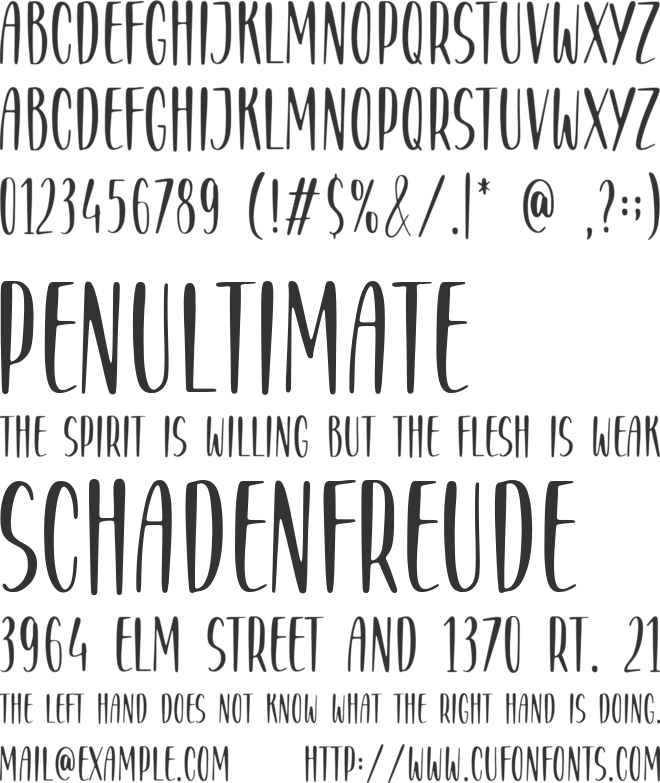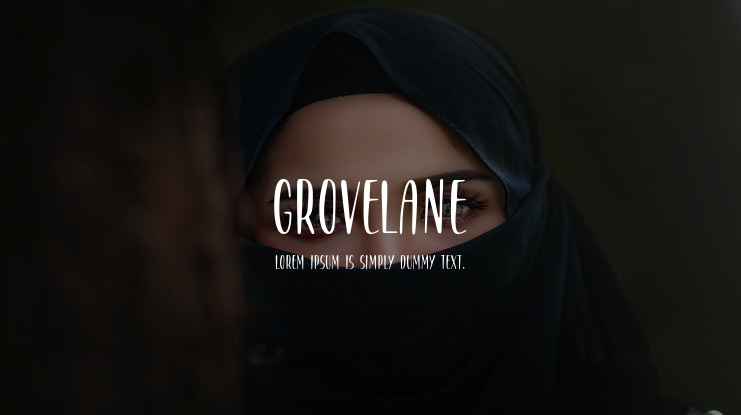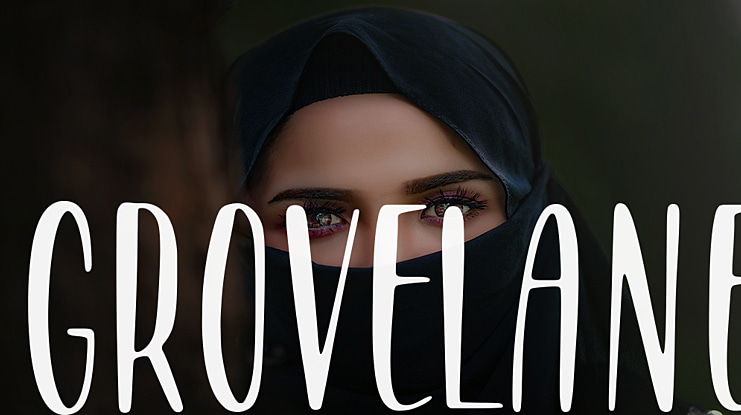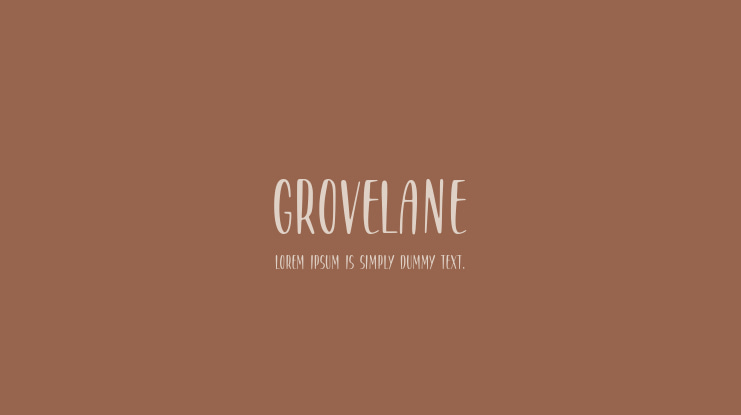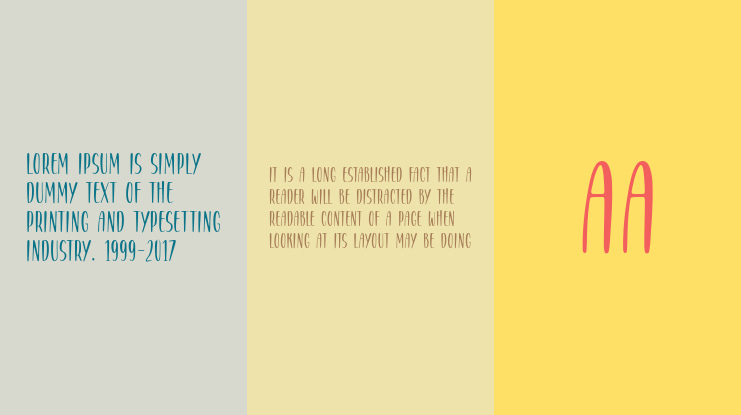
GROVELANE Font
Introducing by Balpirick Studio.
Proudly Present, GROVELANE Font.
GROVELANE is a Condensed Handbrushed Font.
GROVELANE is perfect for product packaging, branding project, megazine, social media, wedding, or just used to express words above the background.